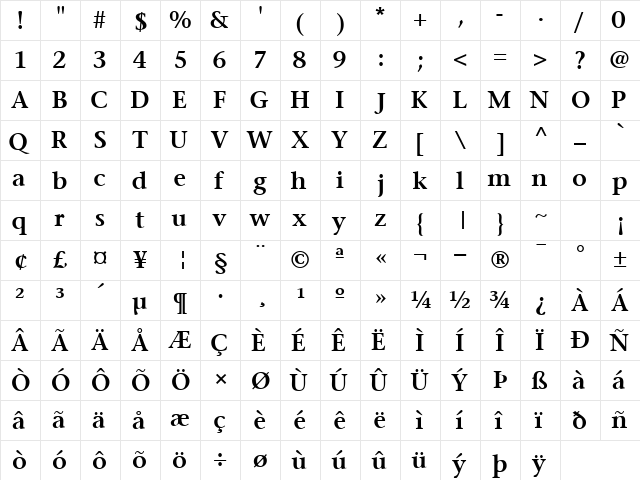
MesouranSerifSSK SemiBold Font Preview
MesouranSerifSSK SemiBold
MesouranSerifSSK SemiBold Font Details
Design Context for MesouranSerifSSK Typeface
MesouranSerifSSK carries the refined structure of traditional serif typography, with bracketed terminals and considered proportions that communicate credibility and craft. Its bold stroke weight gives it real presence on the page.